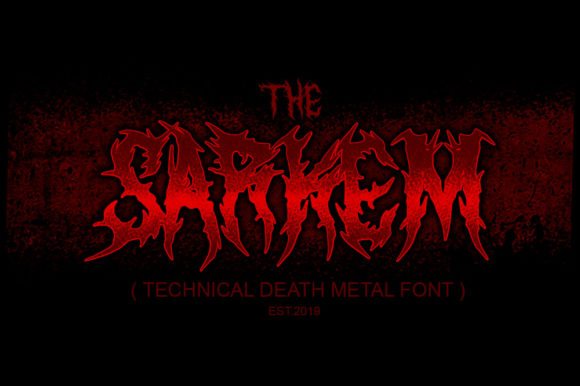
**Introducing Sarkem: The Heavy Metal Font That Will Unleash Your Inner Rock Star**
Prepare to be mesmerized by Sarkem, a display font that embodies the raw power and electrifying energy of heavy metal music. Inspired by the rebellious spirit of the genre, Sarkem is a font that commands attention and demands to be heard.
With its sharp spikes and bold, unyielding structure, Sarkem is the perfect font for creating designs that exude strength and confidence. Whether you're crafting posters, logos, or any other creative project that demands impact, Sarkem will elevate your designs to new heights.
But Sarkem is more than just a pretty face. Its robust construction ensures readability, even at small sizes, making it an excellent choice for both print and digital applications. Its versatility extends from eye-catching headlines to captivating body text, empowering you to create designs that resonate with your audience on every level.